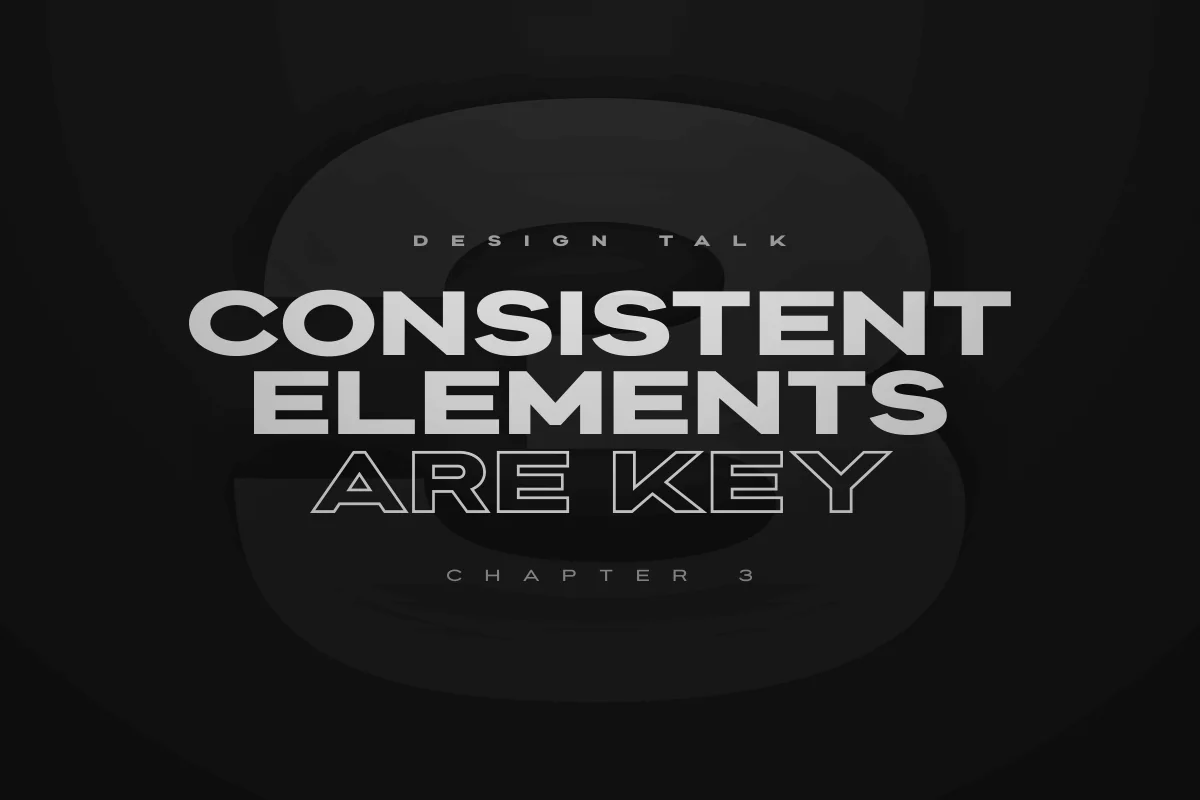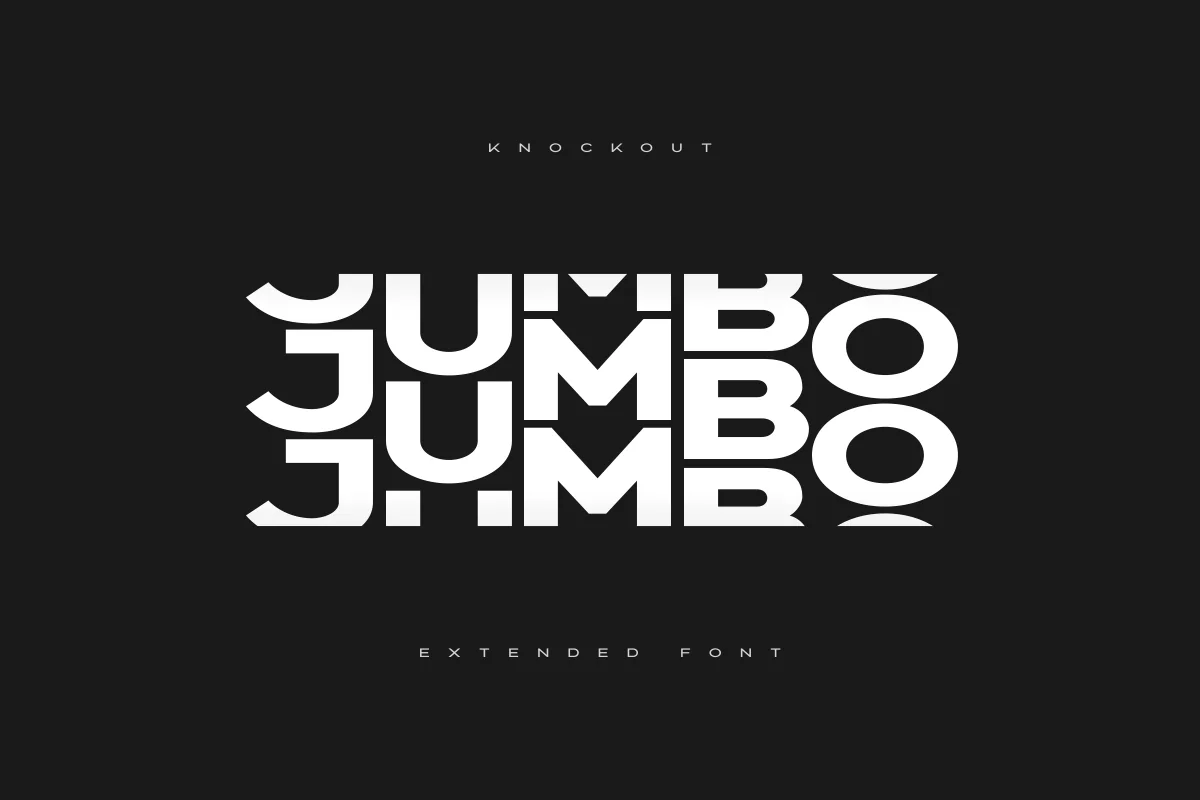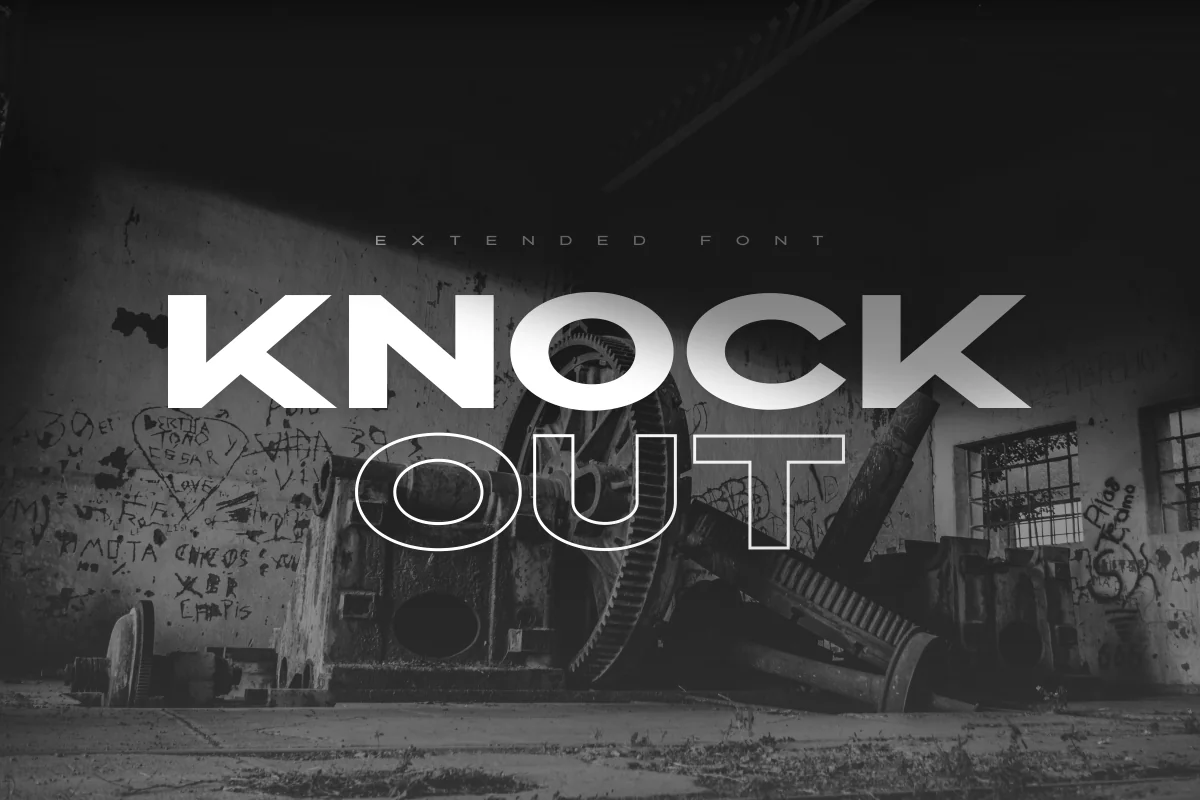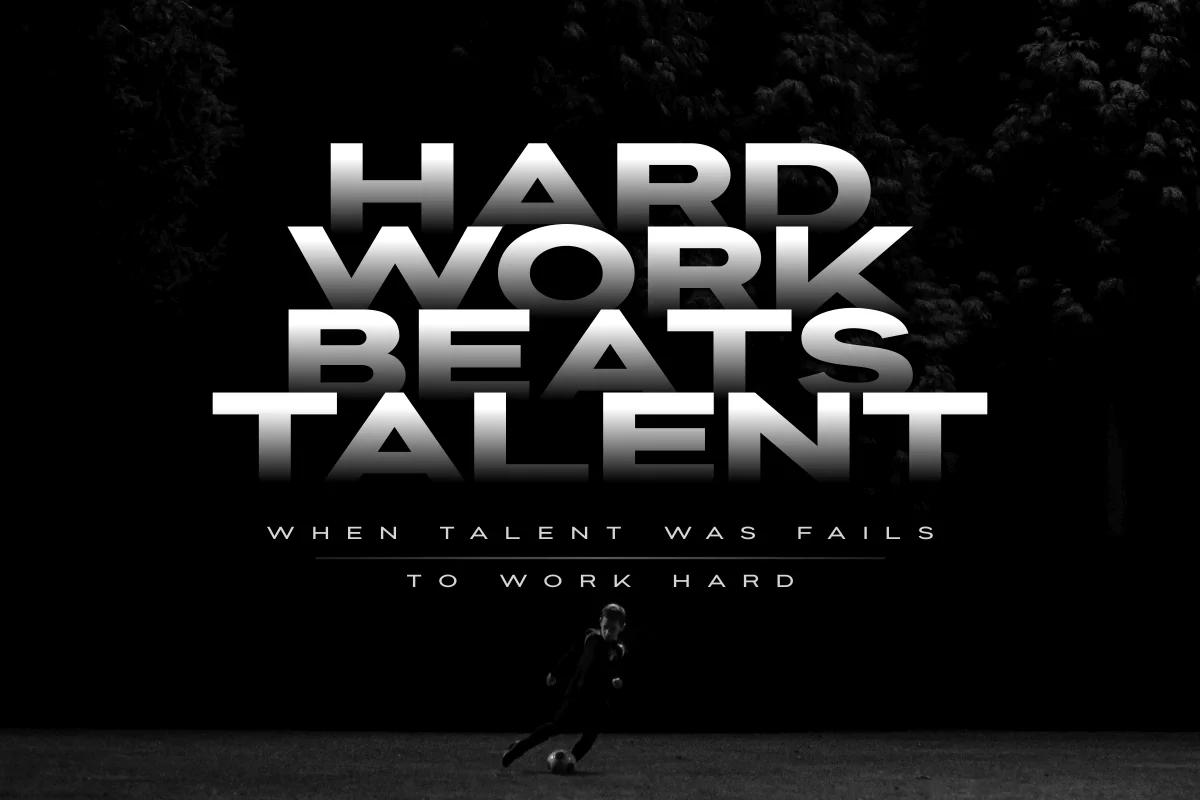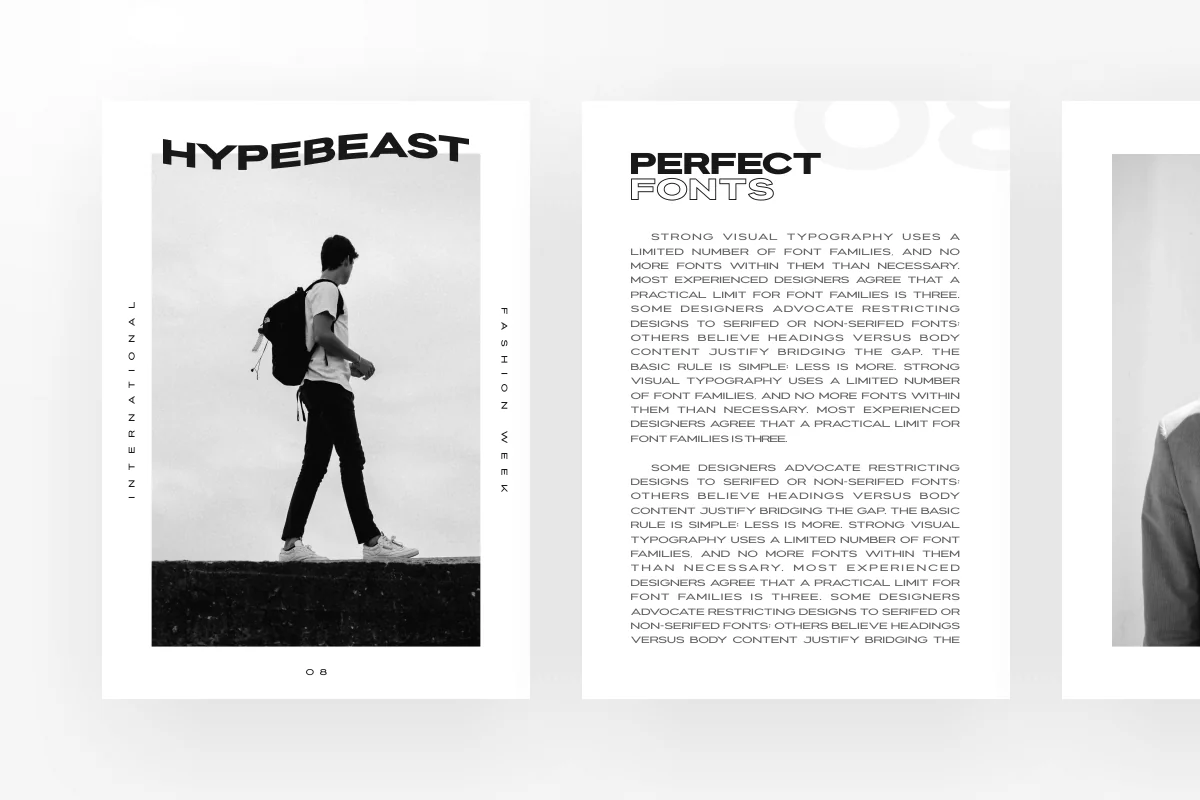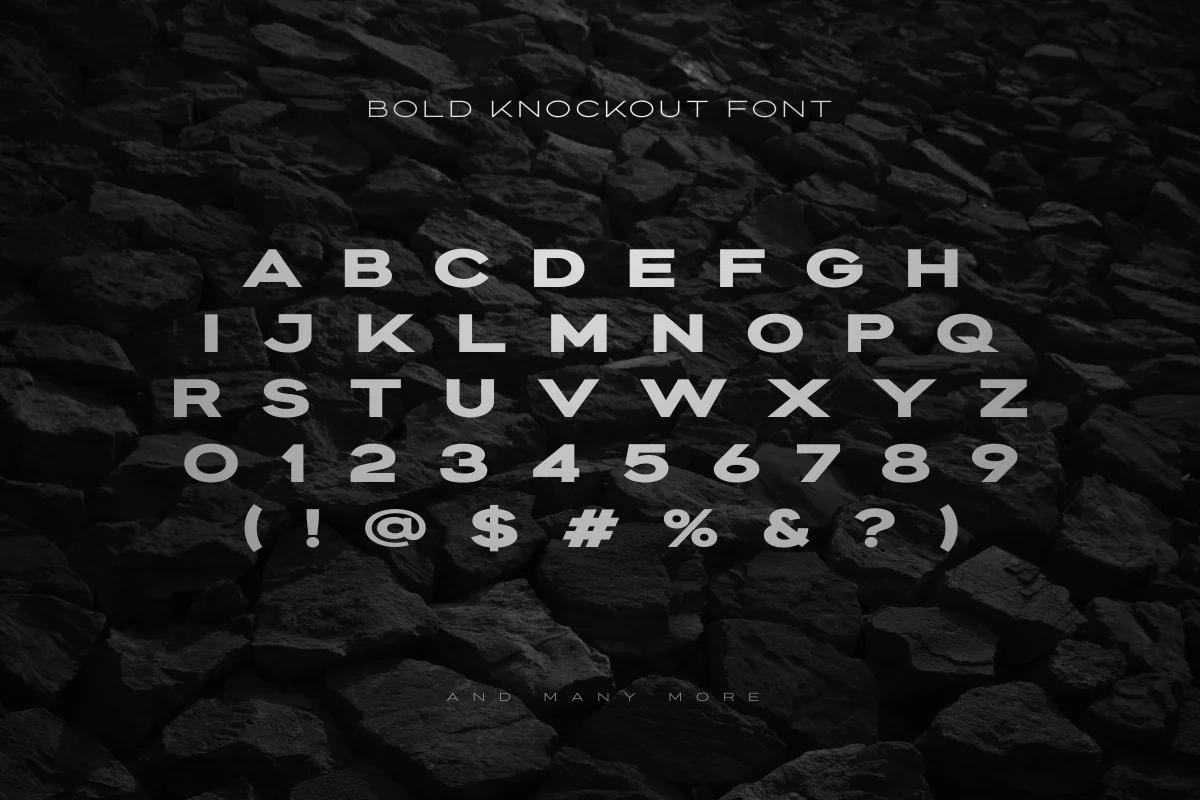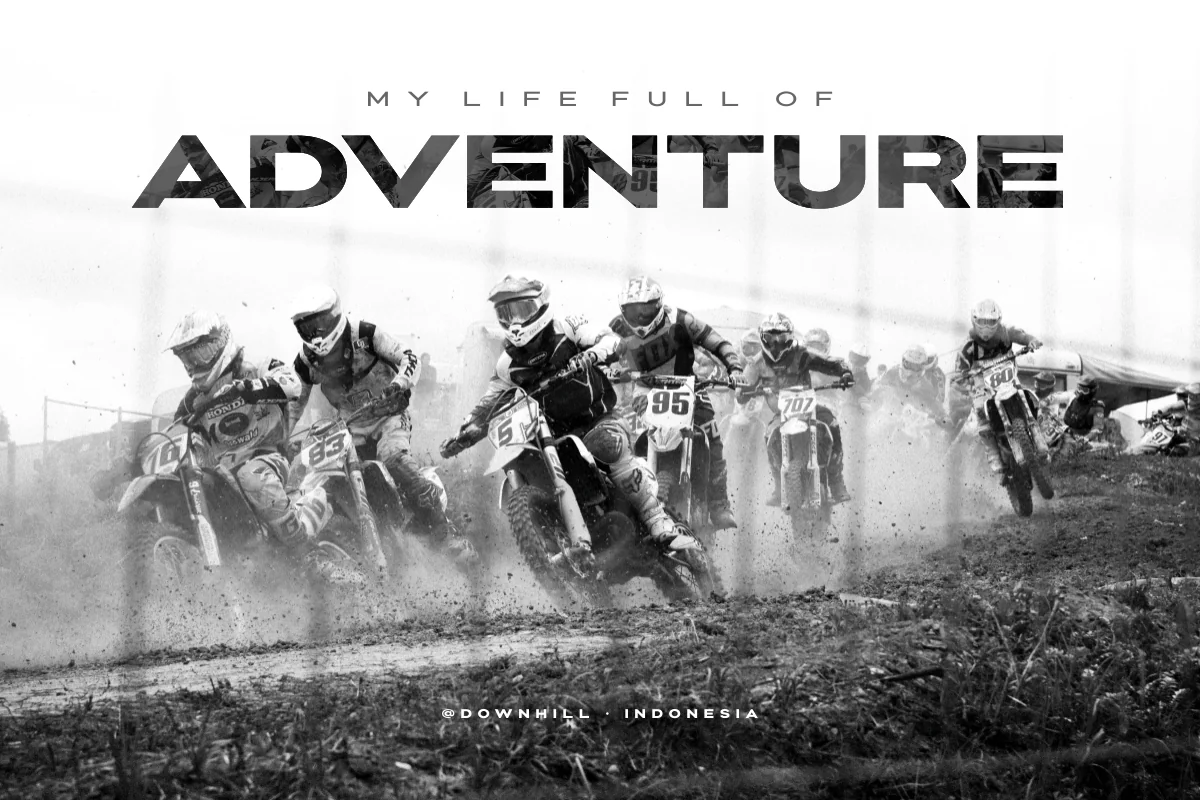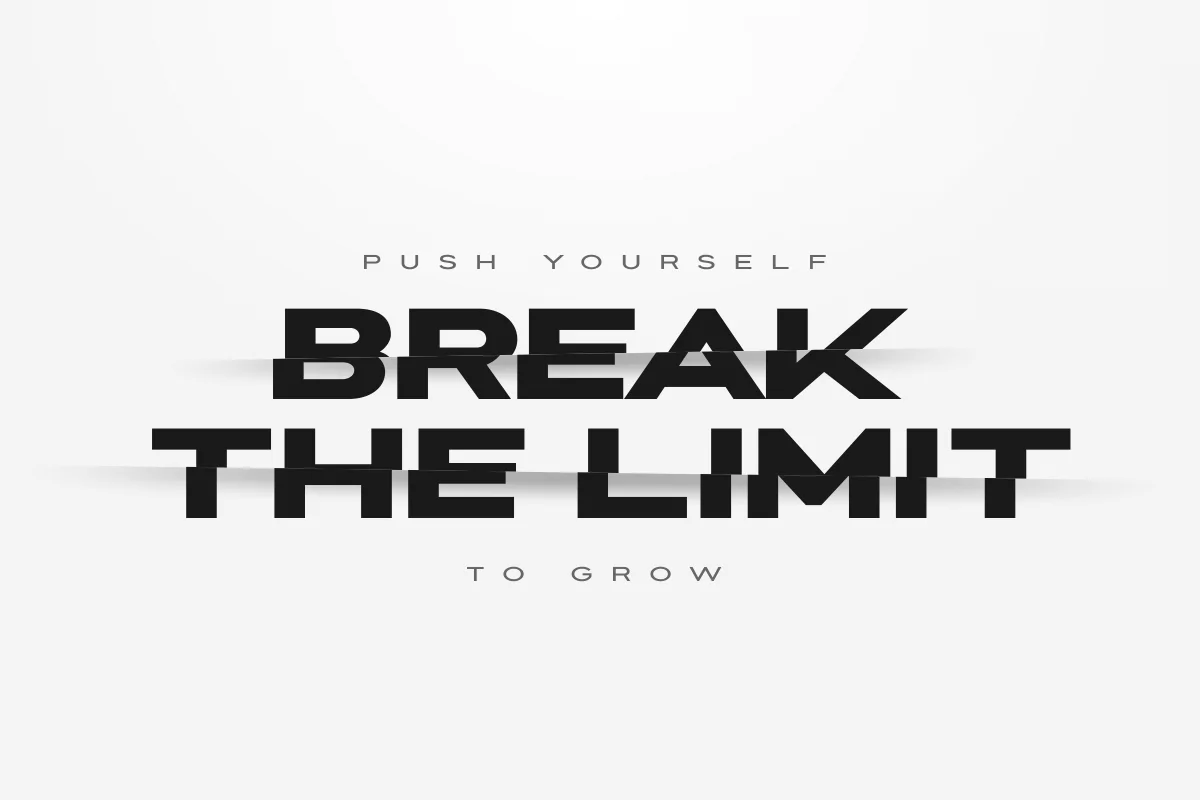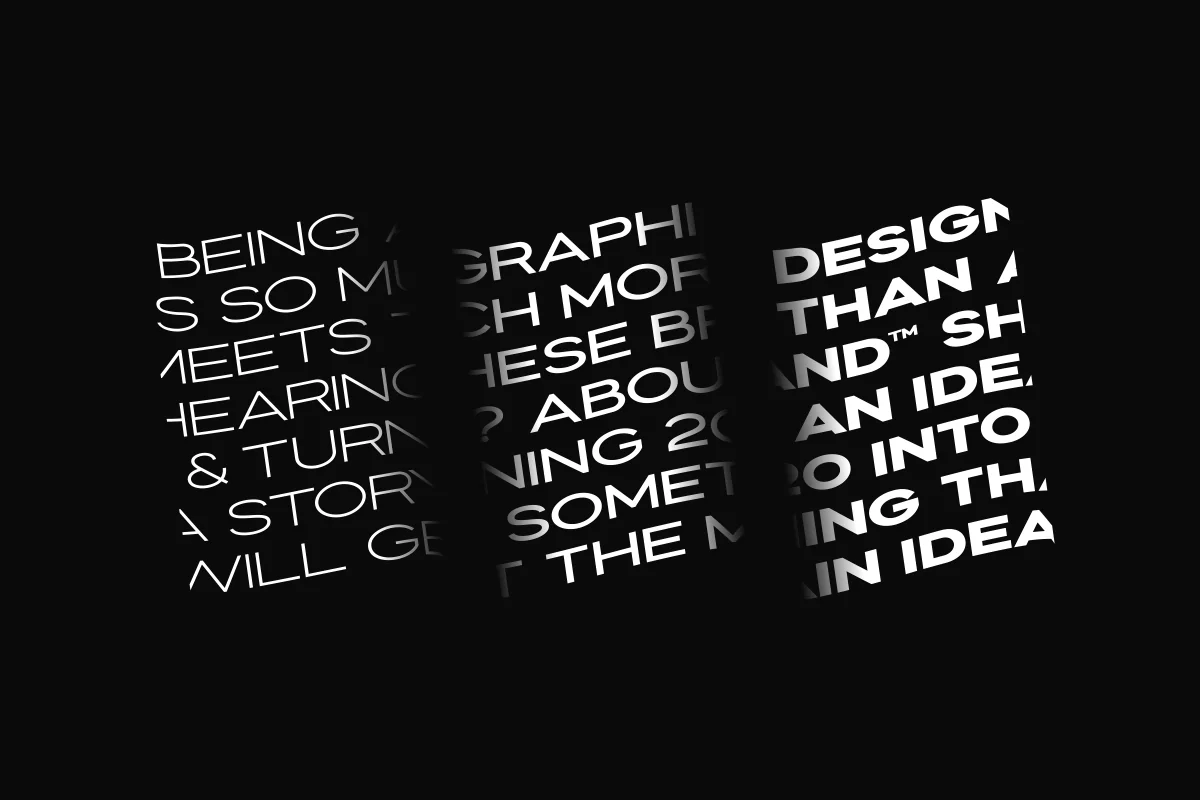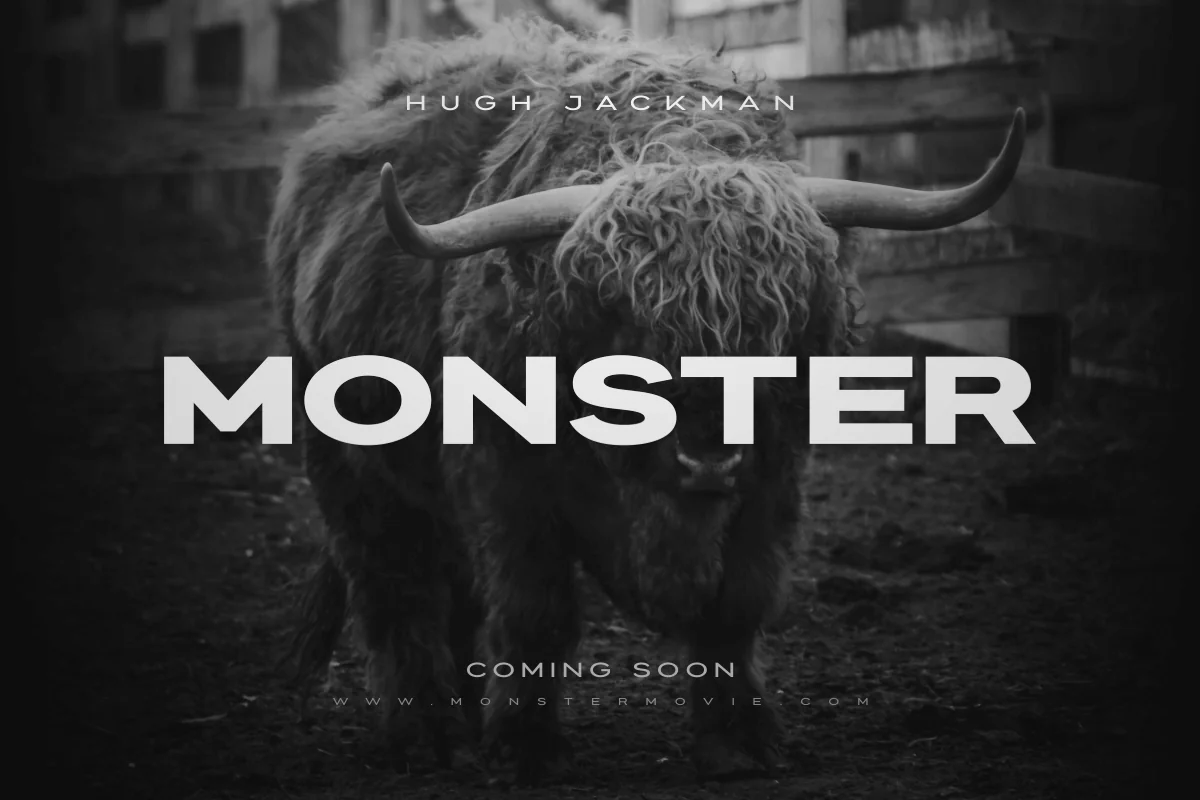
Knockout – Extended Font Family
Knockout is A sophisticated geometric extended font inspired by popular sans-serif fonts, with some modifications to make it more Modern, Bold, Unique, and Classy-look.
- Advanced Character Set for Multi-Language Support
- All-Caps Characters
- 4 Styles: Light, Regular, Bold, and Outline